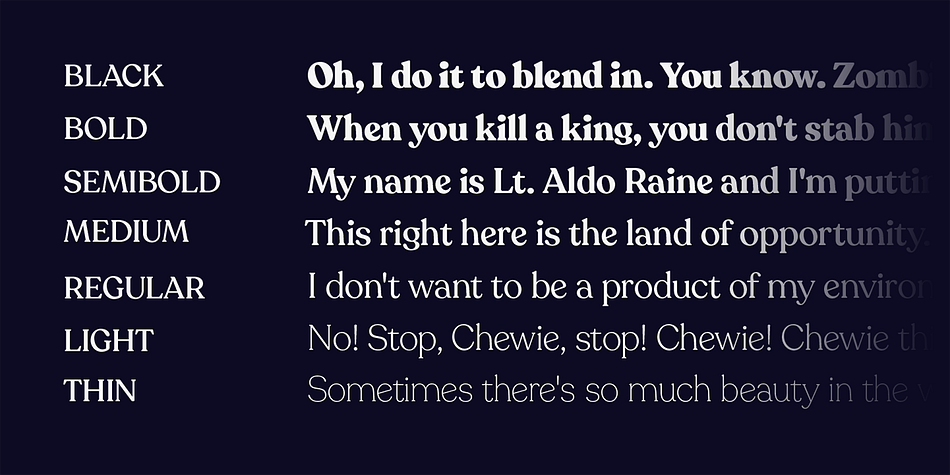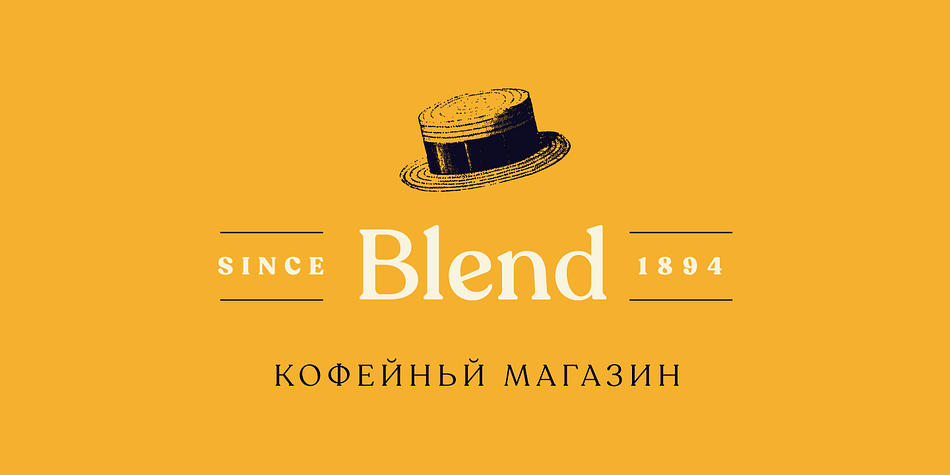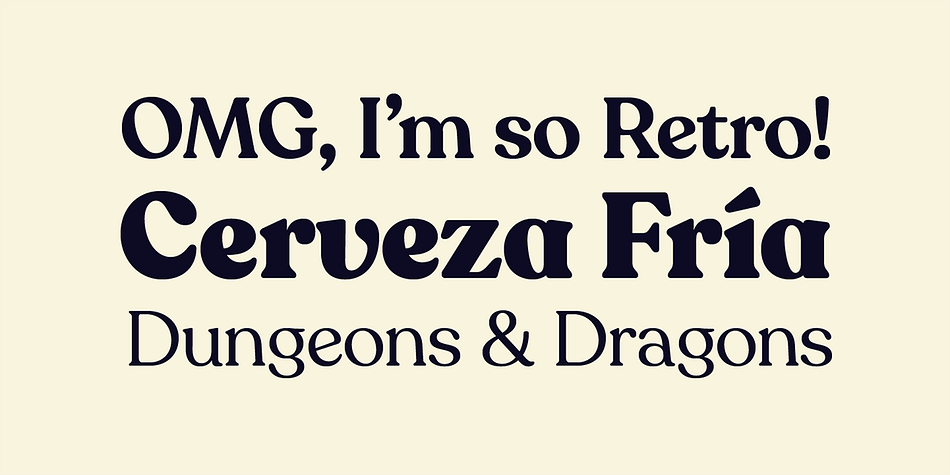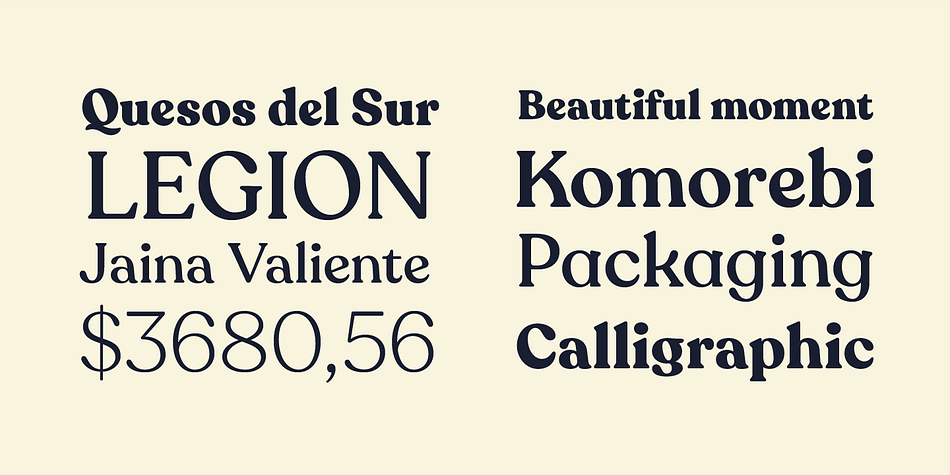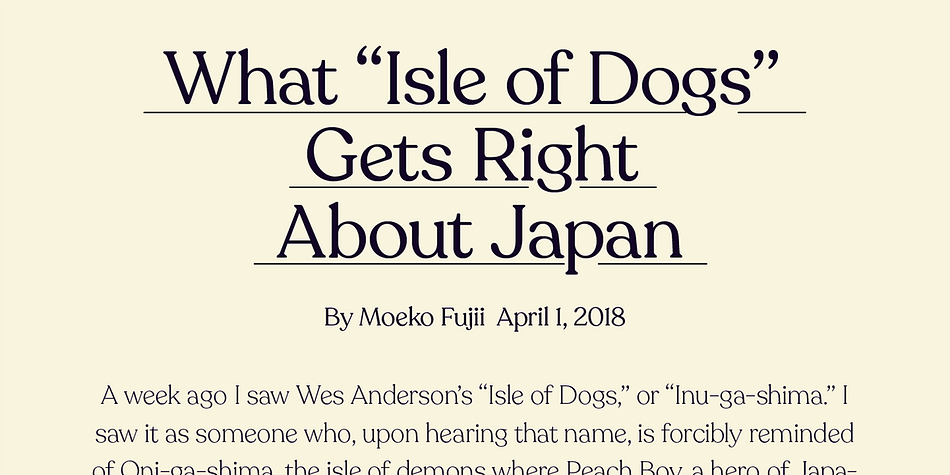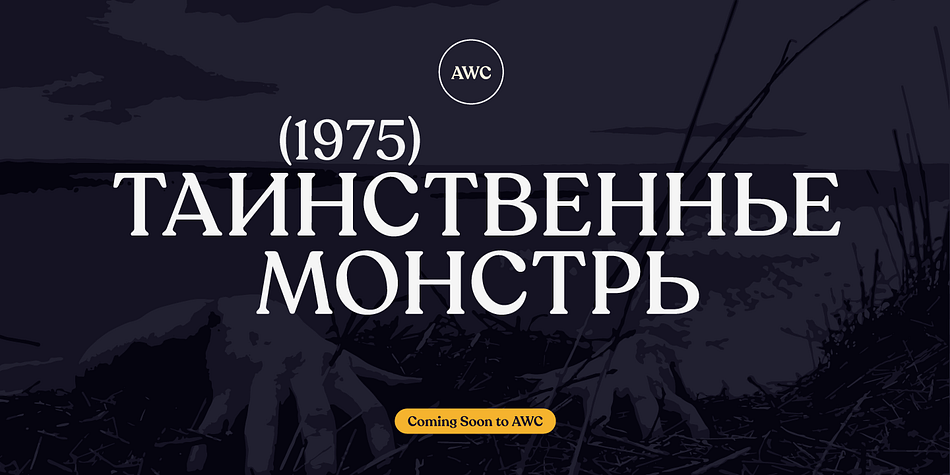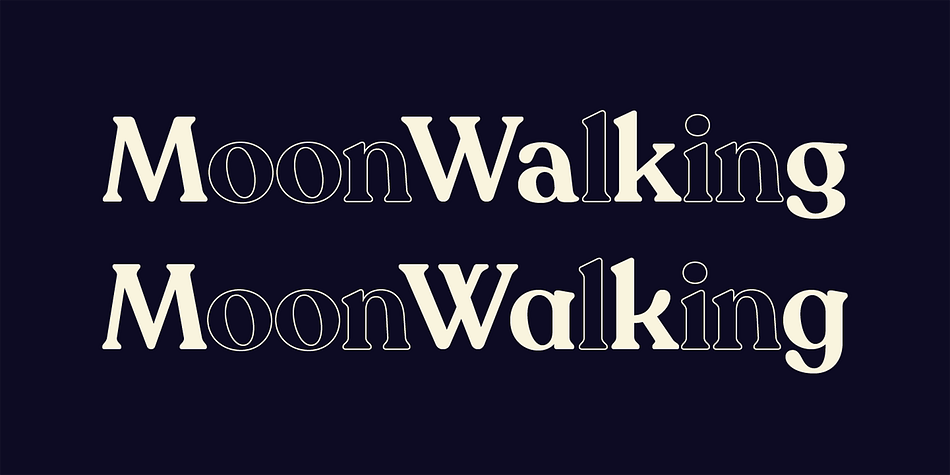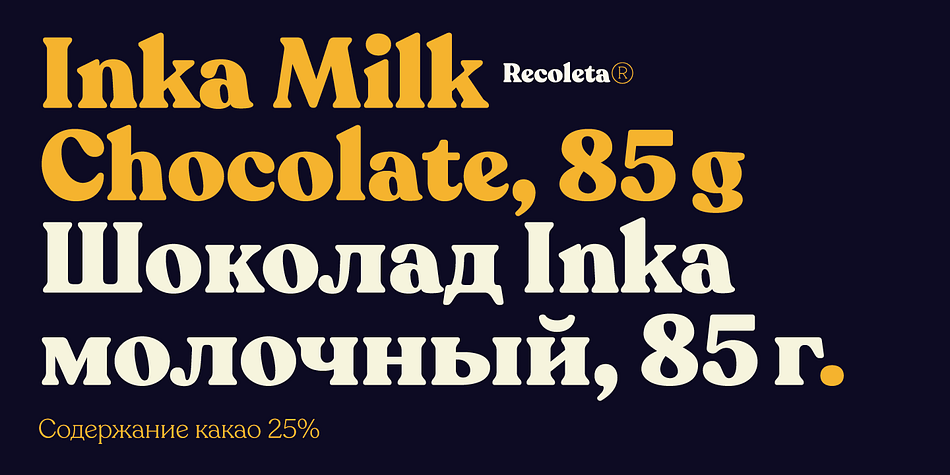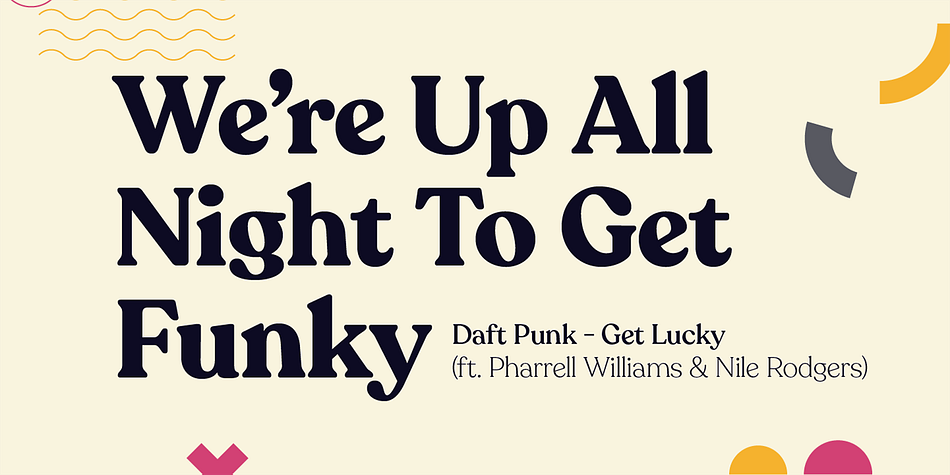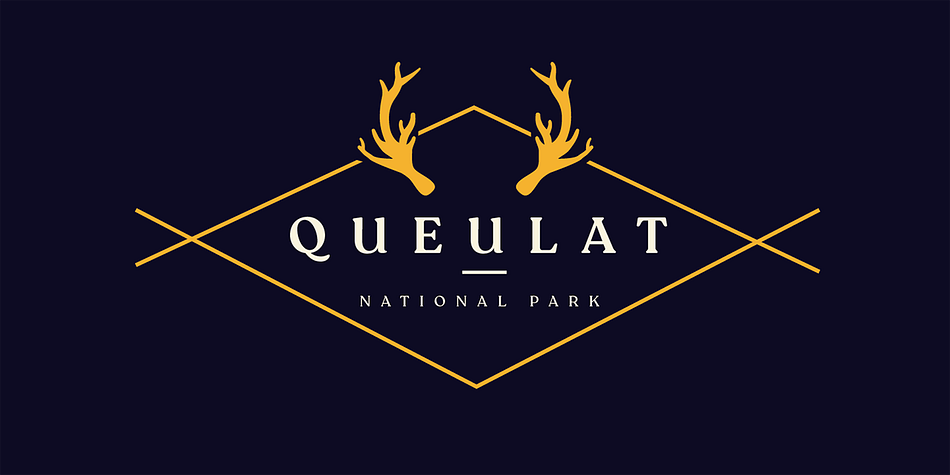
Designed by Jorge Cisterna, Recoleta is a serif font family. This typeface has fifteen styles and was published by Latinotype.
Just like Grandma’s recipe, Recoleta combines a variety of ingredients—from various popular 1970s typefaces—such as the soft and gentle shapes found in Cooper or fluid, angled strokes in Windsor— mixed into one single design that features familiar yet fresh, modern flavors.
Its variety of weights provides a range of choices that will help you find the best typographic color for your project. Lighter weights are well-suited for body text while heavier ones are ideal for high impact headlines. The available stylistic alternates offer a number of different characters that give your logo or business card a unique look.